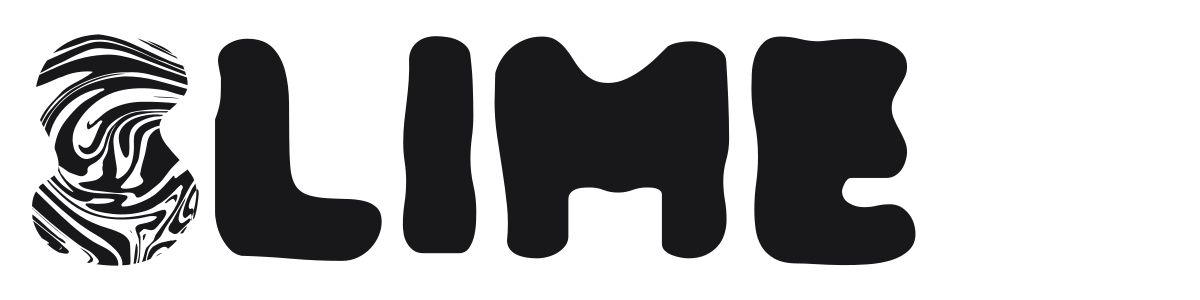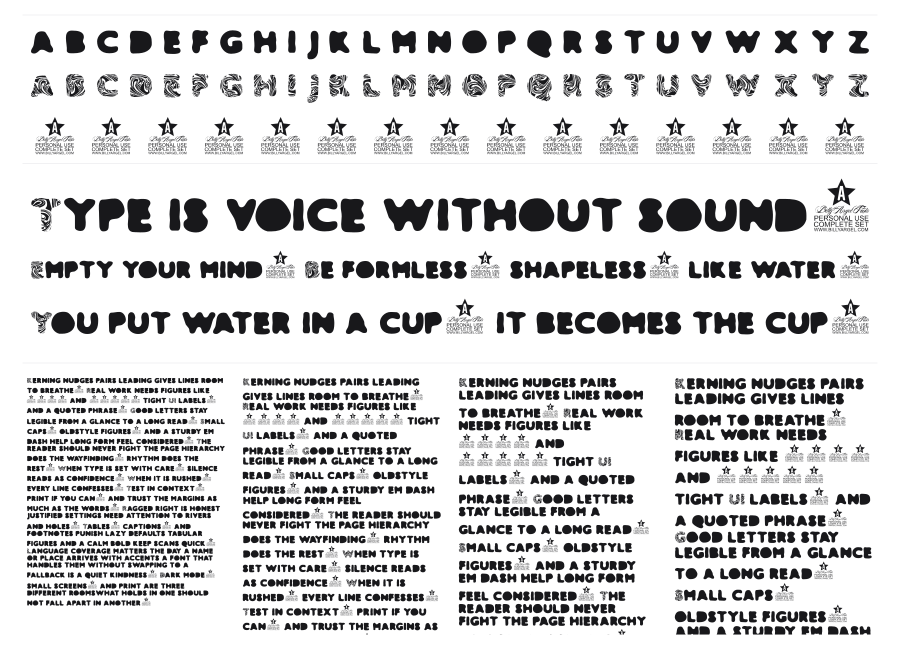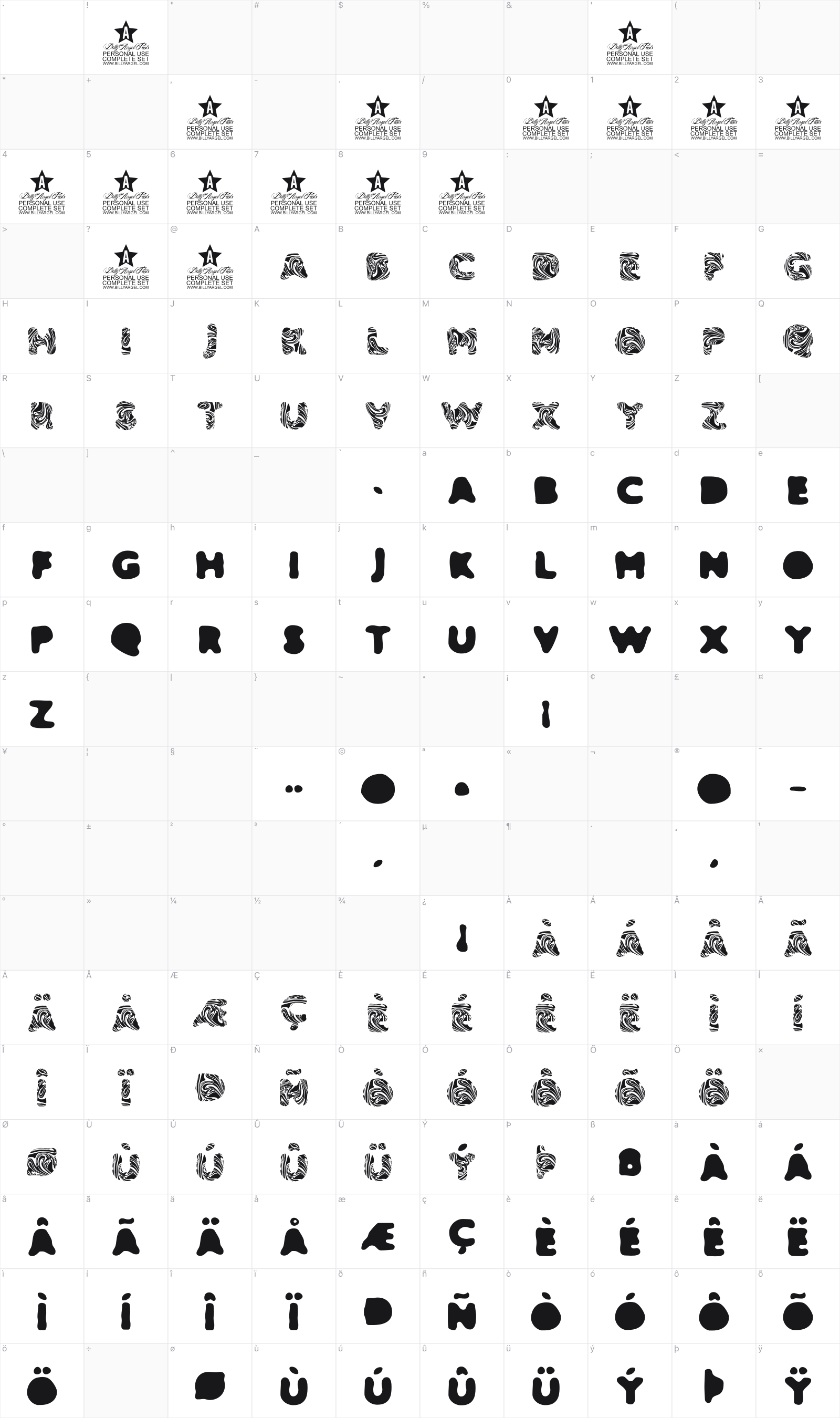
Slime
Slime is an ultra-bold display font by Billy Argel built entirely from rounded, inflated blob shapes that seem to ooze into one another. The characters carry a heavy uniform weight with virtually no stroke contrast, giving them a rubbery, almost three-dimensional quality. It pulls from 1970s groovy typography and works best at large sizes for titles, posters, or any project that needs a playful, over-the-top personality.